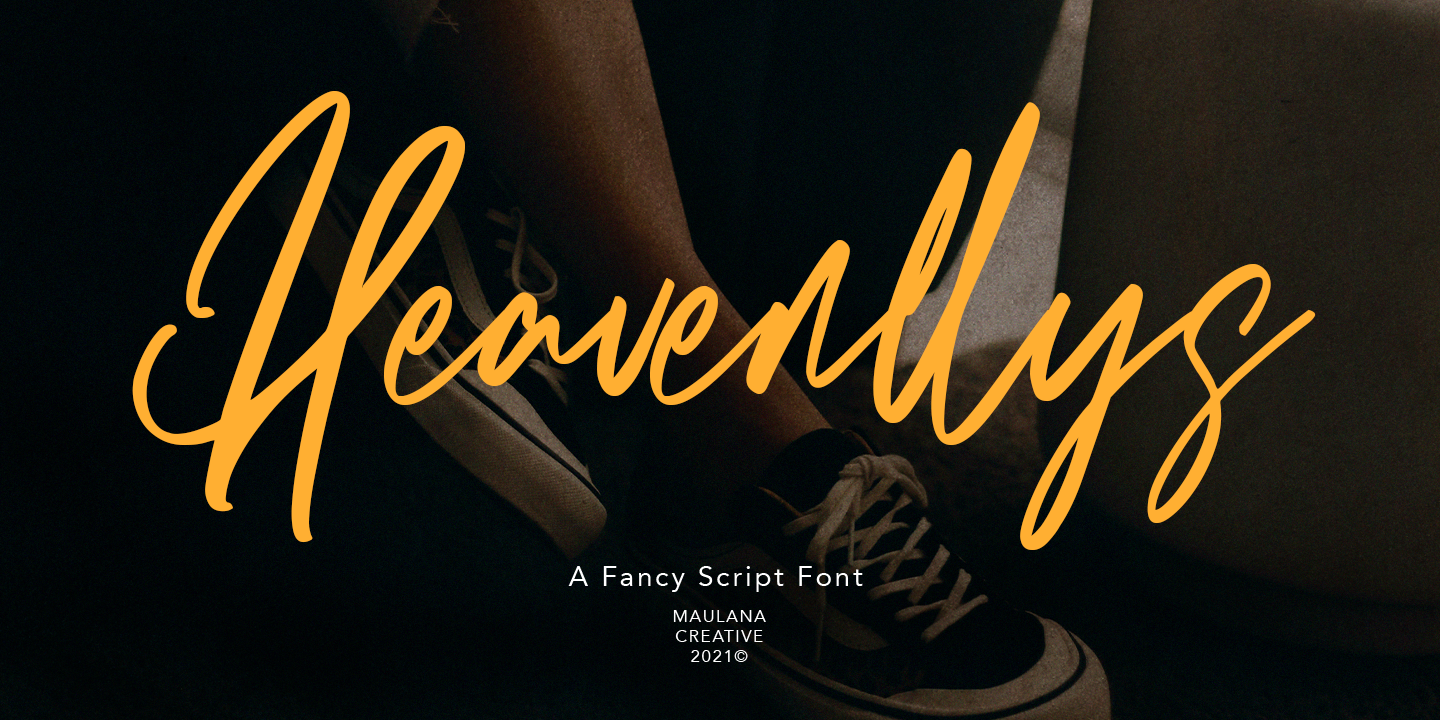
Heavenllys Font is an exquisitely graceful and ethereal typeface, perfectly suited for projects that aim to evoke a sense of purity, divine beauty, and serene elegance. Imagine it gracing the luxurious invitations for a sacred ceremony, adding a delicate and uplifting touch to spiritual literature, or providing a captivating aesthetic for high-end boutique branding focused on tranquility and well-being. It's also an excellent choice for crafting heartfelt greeting cards, designing unique labels for artisanal products, or infusing blog headers and social media posts with a celestial and visually enchanting personality. If you're looking to convey grace, serenity, and an undeniable sense of delicate perfection, Heavenllys Font is an outstanding selection.
What makes Heavenllys Font so exciting? It’s its unique ability to blend a fluid, artistic style with subtle, almost angelic flourishes that create a harmonious and captivating visual experience. This font often features graceful curves, delicate ligatures, and an organic flow that gives it an undeniable charisma and visual richness, reminiscent of elegant handwritten script. Despite its decorative nature, Heavenllys Font is meticulously designed to maintain excellent readability, ensuring your message is communicated beautifully and with an ethereal, uplifting tone. Designers will appreciate its versatility in creating designs that feel both intimately personal and professionally luxurious, making it a go-to choice for brands and projects that aim to connect with their audience through themes of beauty, calm, and refined spirituality.
The Heavenllys Font family is typically designed to showcase a singular, beautifully crafted script or display style that perfectly embodies its unique appeal. While it may not feature extensive weight variations like a traditional text font, its strength lies in its inherent personality and often includes a rich set of stylistic alternates, swashes, or ligatures that enhance its elaborate aesthetic. These subtle details allow Heavenllys Font to maintain its cohesive and enchanting look across various applications, from elegant brand endorsements to charming personal correspondence. Discover the captivating allure of Heavenllys Font Free Download and infuse your designs with an unforgettable sense of heavenly splendor.